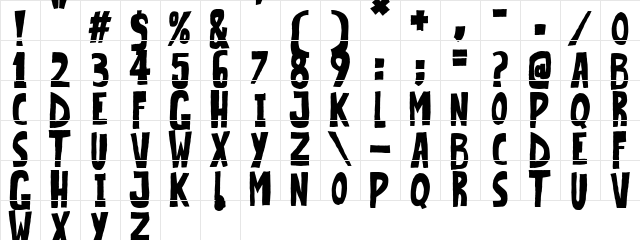
Very Popular Regular
Design Context for Very Popular Typeface
Very Popular is a composed and adaptable typeface that performs quietly and consistently across a wide range of design contexts.